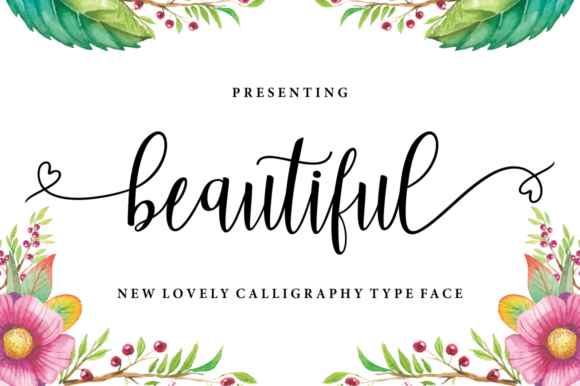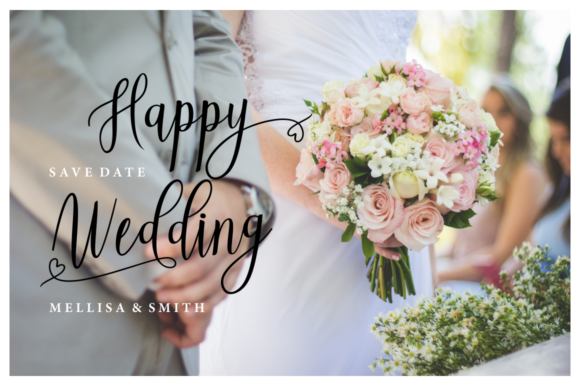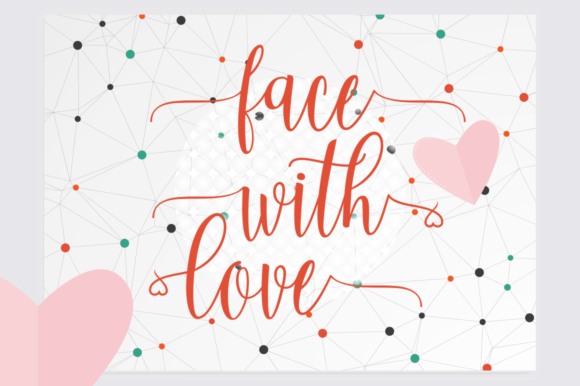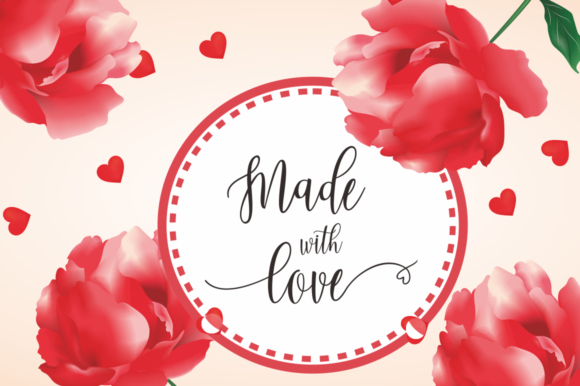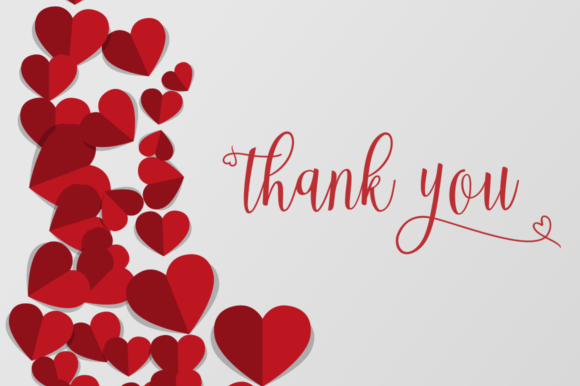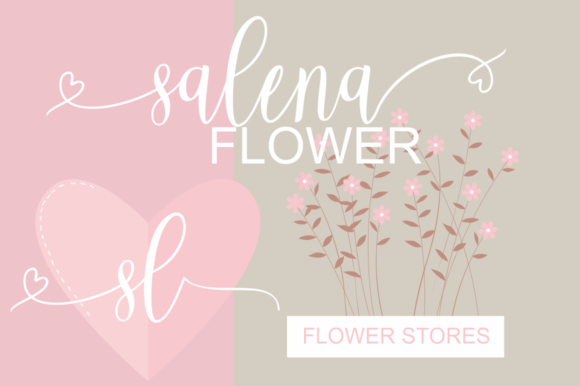
Beautiful
About Beautiful Font
Inspired by classic typography, Beautiful brings its unique style to any design project. This fantastic script font is suitable for headlines of all sizes, for web, print, moving images, or anything else. Beautiful will look spectacular!